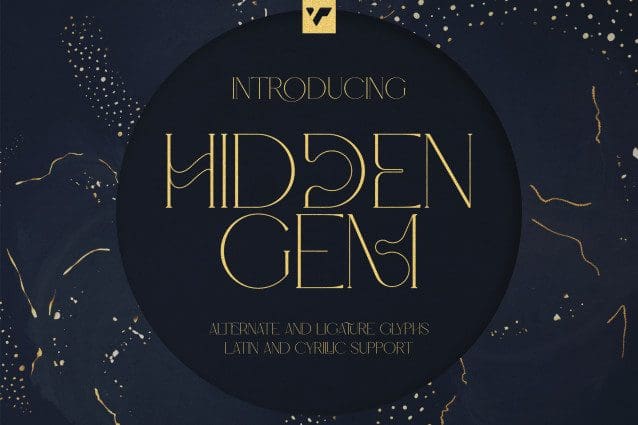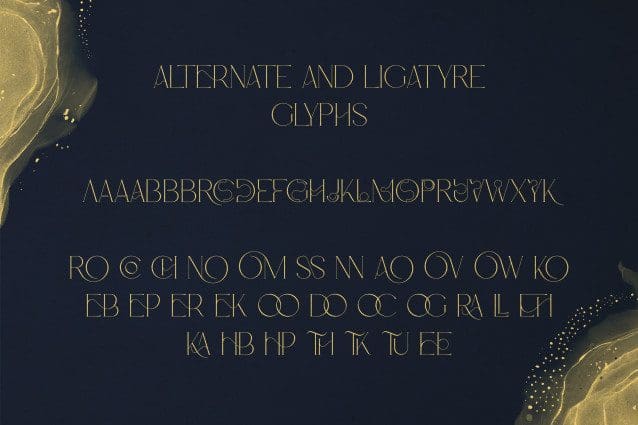
Hidden Gem Font
Hidden Gem Font is an elegant, luxurious font with a wide range of characters and support for 95 languages. Customize your designs to perfection using glyphs or alternate ligatures. This gorgeous serif typeface is perfect for decorative art logos, elegant wedding invitations, beautiful headlines… really any project you can imagine! Let Love & Luxury take over your creativity—experience Hidden Gem today!
Designer Name: VPcreativeshop